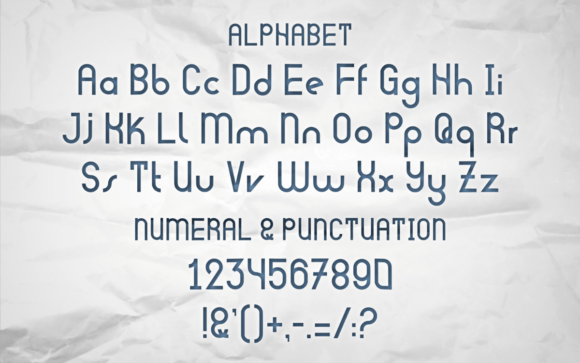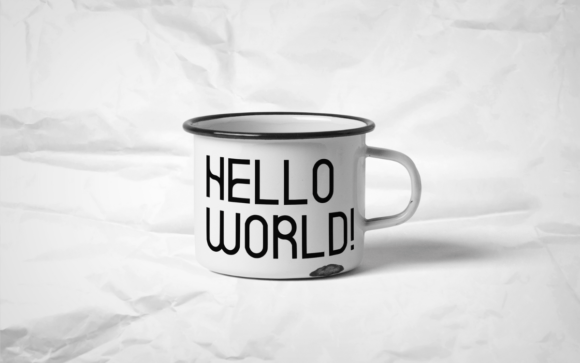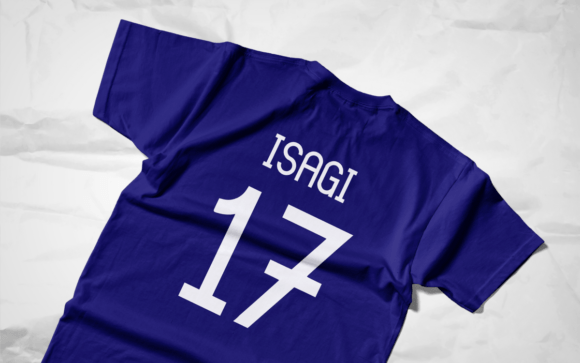
Introduction to Isagi Font Font
Fonts play a crucial role in design, and the Isagi Font font is a typeface that brings both character and versatility to any project. Whether you’re working on a branding project, a website, or a print design, the Isagi Font font offers a unique style that can elevate your work.
Introducing the awe-inspiring βISAGIβ font, a mesmerizing symphony of exquisitely interwoven lines and circles.
Each stroke gracefully dances in perfect harmony, exuding an unparalleled sense of balance and symmetry that captivates the eye Prepare to be enchanted by the sheer audacity of the βISAGIβ font, boasting an indomitable boldness that commands attention and leaves an indelible mark on every surface it graces.
Key Features of Isagi Font Font
Why Choose Isagi Font Font?
The Isagi Font font is more than just a typeface β it’s a design tool that helps you communicate your message with style and clarity. Its unique character set and versatile design make it suitable for a wide range of applications, from elegant invitations to bold headlines.
With its carefully crafted letterforms and balanced proportions, the Isagi Font font ensures readability and visual appeal across all mediums.
What makes Isagi Font font special?
The Isagi Font font stands out with its unique design, exceptional readability, and versatility across various design applications.